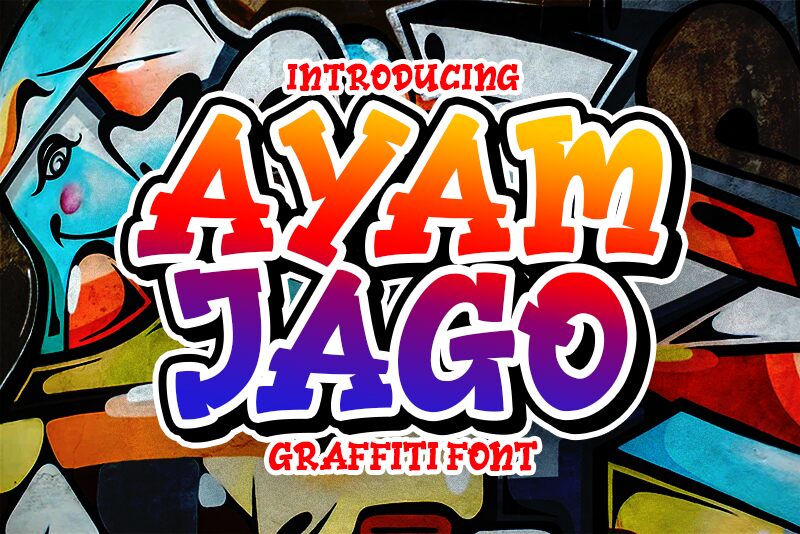
Introducing Ayam Jago - a bold graffiti font designed by Beautypes. Perfect for projects that require a modern, edgy feel, such as album covers, streetwear designs and graffiti-inspired artwork.
Ayam Jago